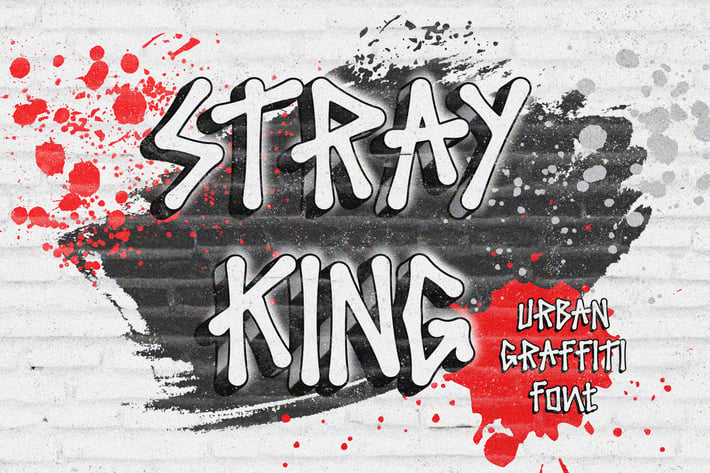
Stray King - Urban Graffiti Font
Stray King is a unique display typeface perfect for titles, large text, branding, logotypes & graphic design purposes such as posters, pamphlets, and advertisements. This letter font can be a great choice for creating amazing logos, promotional content, and marketing presentations that can bring uniqueness and freshness at its best.